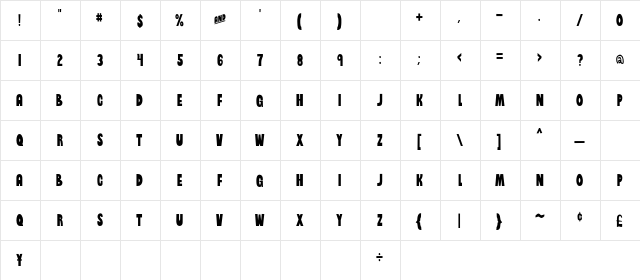
Brinetext Black Regular
| Foundry | Skyhaven Fonts |
| Designer | Alex Tomlinson |
Design Context for Brinetext Black Typeface
Brinetext Black offers clean, dependable letterforms without strong stylistic allegiance, making it a practical choice for designers who need flexibility.